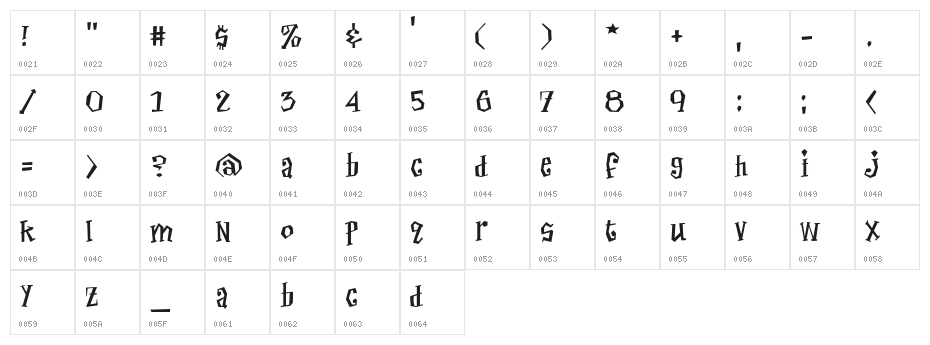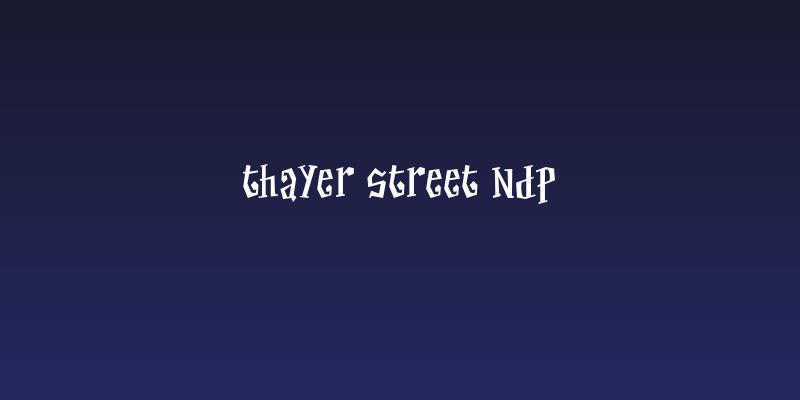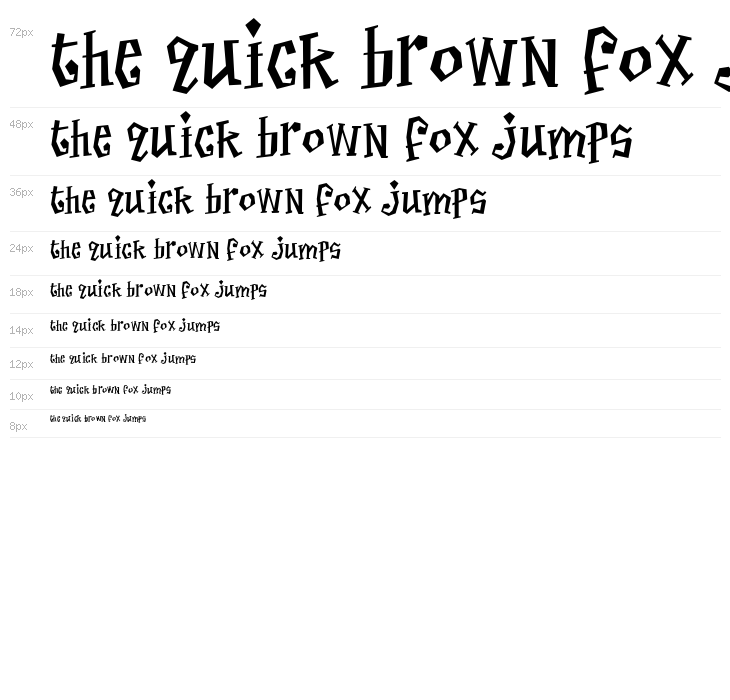
Thayer Street NDP Font
Thayer Street NDP Description
This font features a bold and angular design with a distinct gothic influence. The characters are sharply defined with a unique geometric style that gives them a modern yet medieval appearance. The uppercase and lowercase letters maintain a consistent height, creating a uniform look. Numbers and special characters follow the same angular theme, ensuring a cohesive visual identity. The font's bold strokes and sharp angles make it stand out, ideal for projects that require a strong and distinctive typeface.
| Overall Style | Modern Gothic |
| Proposed Projects | Ideal for branding, posters, album covers, and any project needing a bold, eye-catching typeface. |